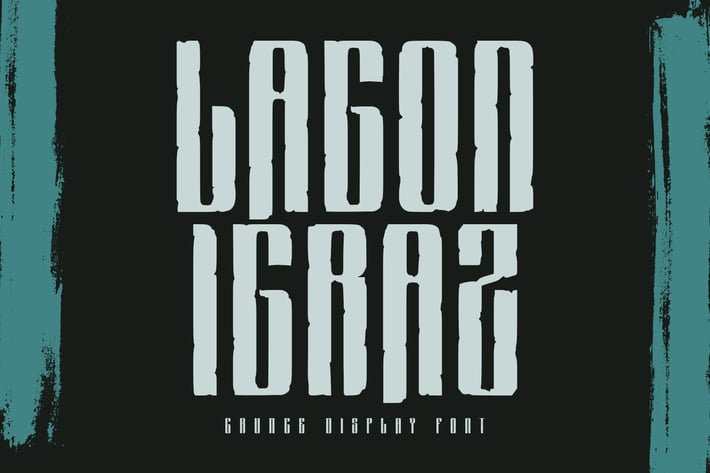
Lagon Igraz Grunge Vintage Display Font
Lagon Igraz is a display vintage modern font. With bold tall and hard stroke, fun character with a bit of ligatures. To give you an extra creative work. Lagon Igraz font support multilingual more than 100+ language. This font is good for logo design, Social media, Movie Titles, Books Titles, a short text even a long text letter and good for your secondary text font with sans or serif. Make a stunning work with Lagon Igraz font.